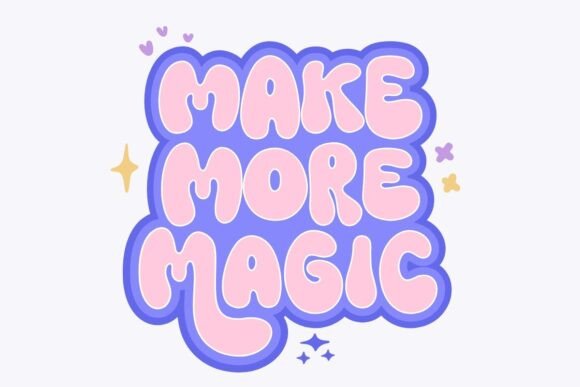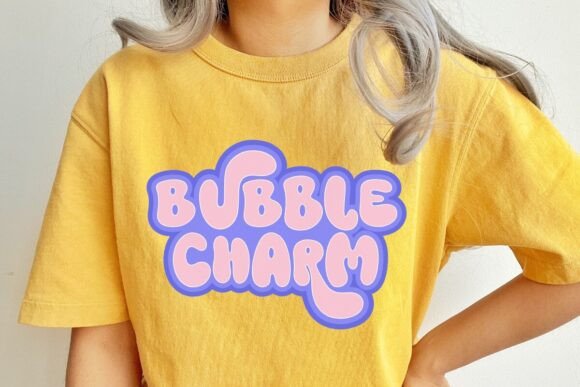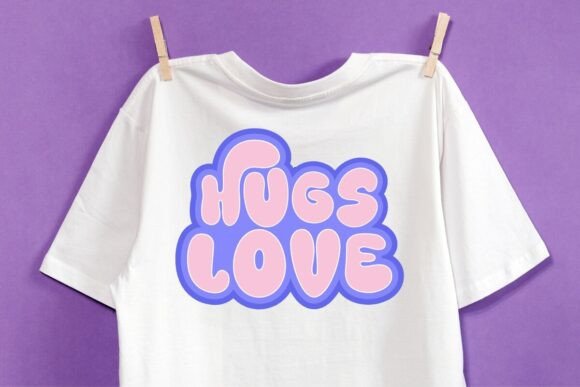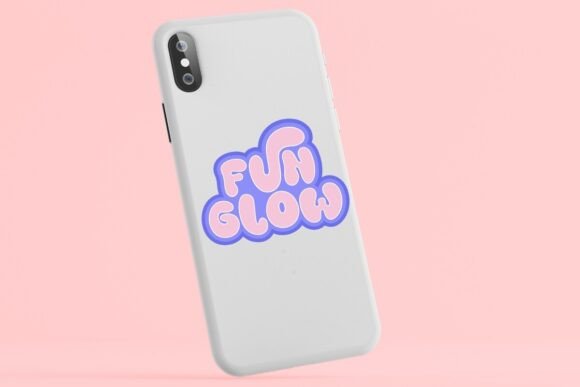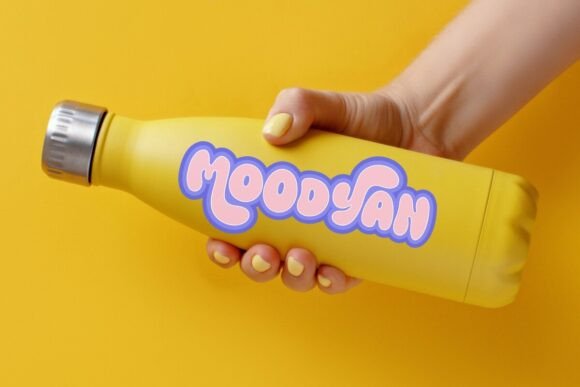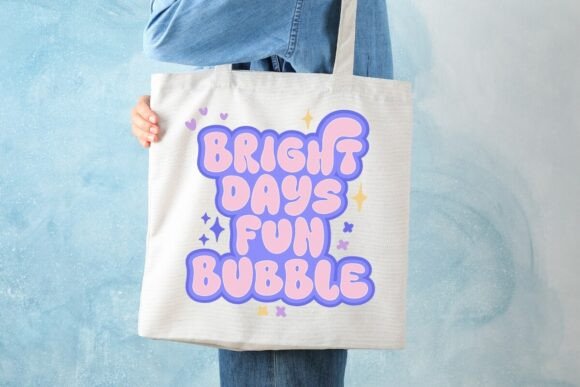
Unlock Your Inner Designer
Have you ever stared at a blank canvas, eager to unleash your creativity but unsure where to start? You’re not alone. As designers, we’ve all been there – searching for that perfect spark to ignite our imagination and bring our ideas to life. For many, that spark comes in the form of a unique and captivating font.
Enter the whimsical world of the Bubble Mood Font, a handcrafted masterpiece designed to add an extra layer of personality to your designs. With its playful blend of uppercase and lowercase letters, this font is perfect for those looking to inject a dash of whimsy into their projects. Whether you’re a seasoned designer or just starting out, the Bubble Mood Font is an invaluable asset that will breathe new life into your creations.
By incorporating the Bubble Mood Font into your designs, you’ll be able to transform ordinary items into extraordinary works of art, complete with inspiring quotes and a touch of elegance. The possibilities are endless, and with this versatile font, you’ll never run out of creative ideas.
Bubble Mood Font Key Features
- Font Style: A modern, playful, and emotive font with a mix of rounded and pointed shapes, suitable for various design projects.
- Unique Characteristics: The font features a unique blend of rounded and pointed shapes, creating a distinctive and emotive visual effect that can add personality to any design project.
Bubble Mood Font Review
Overall, I think the Bubble Mood Font is a lovely addition to any design project. The whimsical and playful nature of the font ✨ is perfect for creating a fun and carefree atmosphere. The unique bubble-like shape of each character adds a touch of personality and sets it apart from more traditional fonts.
- Unique and playful character shapes ✨
- Wide range of character sets, including punctuation and numbers
- Good legibility, even at smaller font sizes
- May not be suitable for formal or professional designs ⚠️
- Limited font weights and styles, which may limit its versatility
Overall, I would say that the Bubble Mood Font is a great choice for designers who want to add a touch of whimsy and fun to their projects. While it may not be suitable for every design task, it’s a great addition to any designer’s toolkit.
The Bubble Mood Font is perfect for:
1. Social media graphics and posts.
2. Blog posts and articles.
3. Presentation titles and headings.
4. Branding and logo designs.